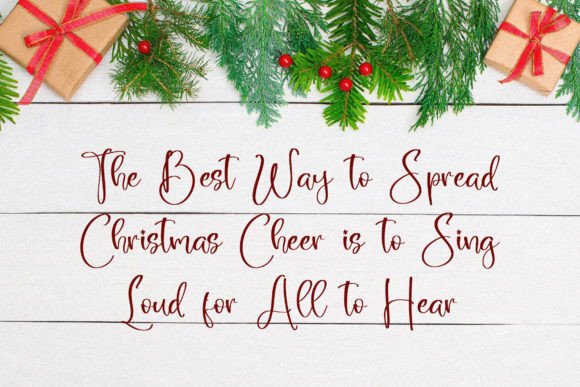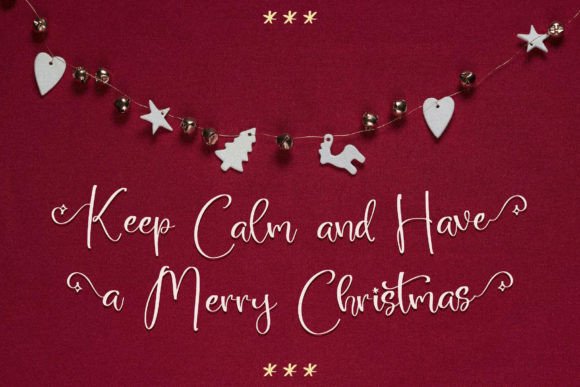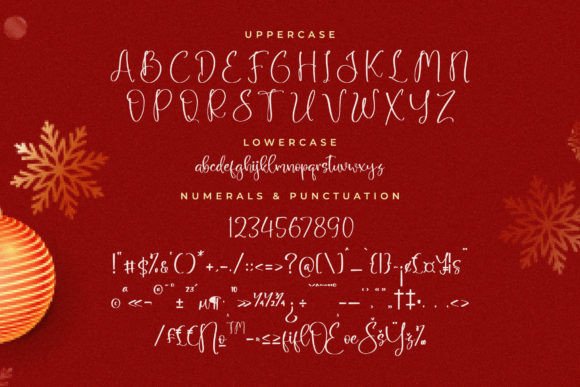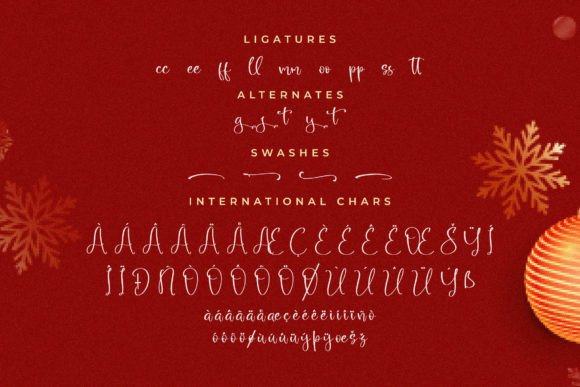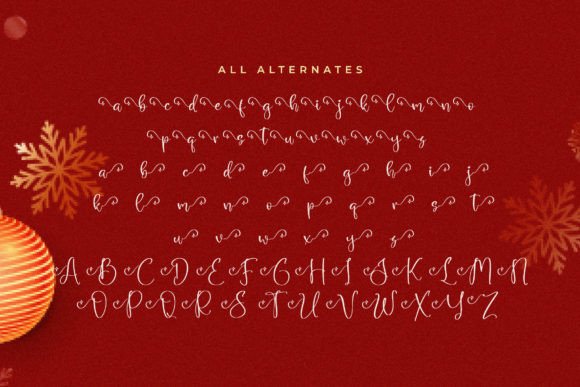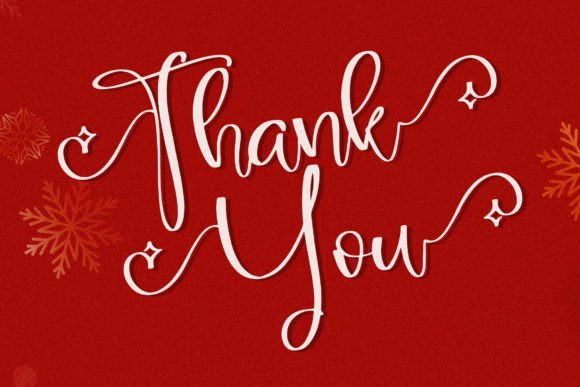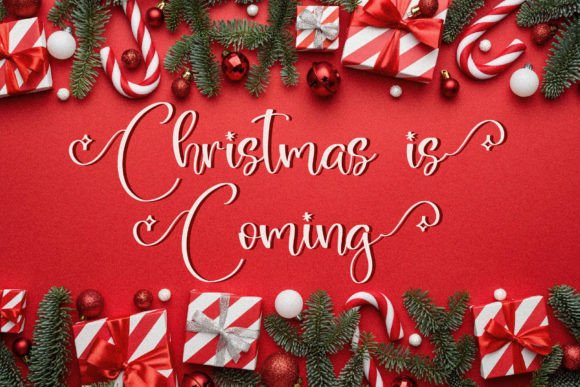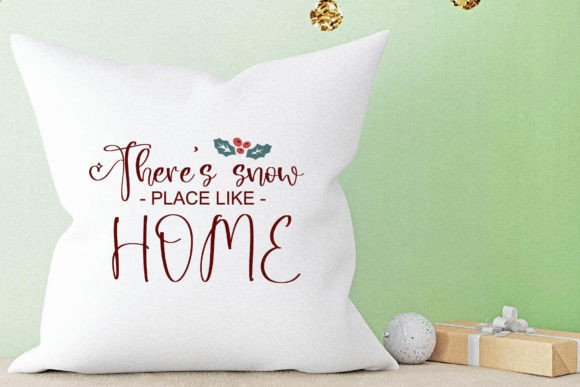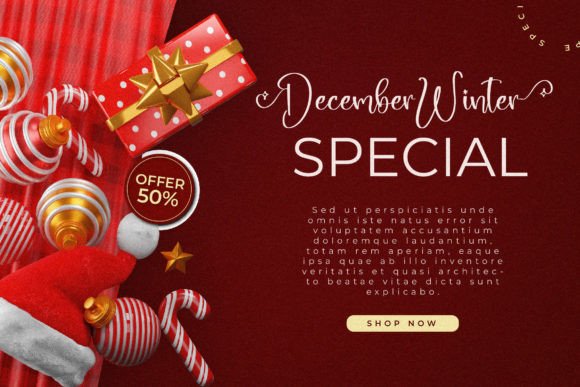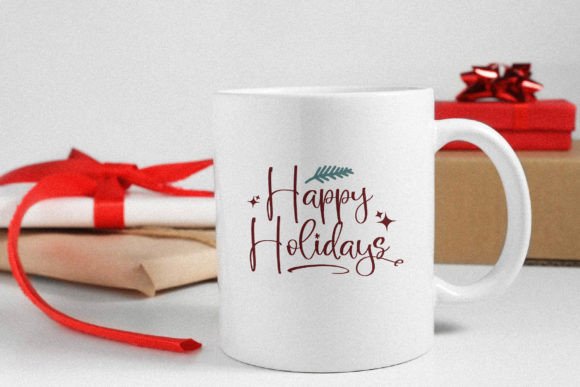
About Snow Christmas Font
The Snow Christmas Font Download is a beautiful handwritten script designed to bring elegance, warmth, and creativity to your projects. With its flowing monoline strokes and carefully balanced curves, this font captures the charm of modern calligraphy while keeping a clean and versatile look.
Crafted with attention to detail, Snow Christmas is ideal for both casual and professional use. Whether you’re designing logos, product packaging, branding materials, or greeting cards, this font ensures that your work stands out with a timeless handwritten style. Its natural rhythm makes it suitable for projects that require a cozy, elegant, and stylish impression.
Features of Snow Christmas Font
• Elegant handwritten script style with smooth strokes
• Full character set including uppercase, lowercase, numerals, and punctuation
• Professional readability for both print and digital designs
• Stylish balance that adapts to modern and classic creative projects
• Versatility for personal, branding, and promotional use
Best Uses for Snow Christmas Font
The Snow Christmas Font Download can elevate a wide range of design applications, including:
• Logos and branding – Create stylish brand identities for businesses or boutiques
• Wedding invitations and stationery – Perfect for romantic, elegant event designs
• Product packaging – Add sophistication to labels for cosmetics, gourmet items, or handmade goods
• Apparel and merchandise – Ideal for t-shirts, tote bags, mugs, and custom clothing
• Posters and flyers – Make promotional materials stand out with elegant typography
• Social media graphics – Enhance Instagram posts, Pinterest pins, or blog banners
• Book covers and magazines – Timeless and creative titles for publications
• Event signage and photography watermarks – A polished script that leaves a professional mark
Why Choose Snow Christmas Font
The Snow Christmas Font Download is loved for its blend of warmth and professionalism. Unlike fonts that are either too decorative or overly minimal, Snow Christmas finds the perfect balance. It adds personality and charm while maintaining clarity, making it ideal for a wide variety of projects.
Designers appreciate its smooth flow and timeless style, ensuring that every design feels authentic and memorable. Whether you’re working on a holiday-themed project, a wedding invitation, or brand packaging, Snow Christmas adapts effortlessly and delivers a beautiful handwritten touch.
The Snow Christmas Font Download is an elegant handwritten script that combines sophistication, warmth, and versatility. With its flowing strokes and timeless beauty, it’s perfect for invitations, branding, packaging, apparel, and more.